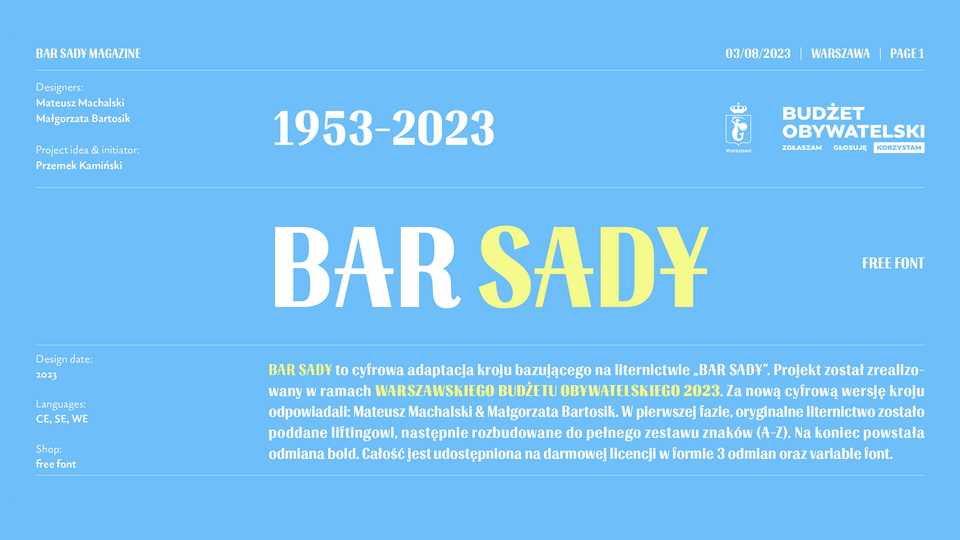
Download BAR SADY font, a revival of a typeface based on famous lettering from “BAR SADY”. The project was implemented as part of the Warsaw Participatory Budget 2023.
Designer: Małgorzata Bartosik